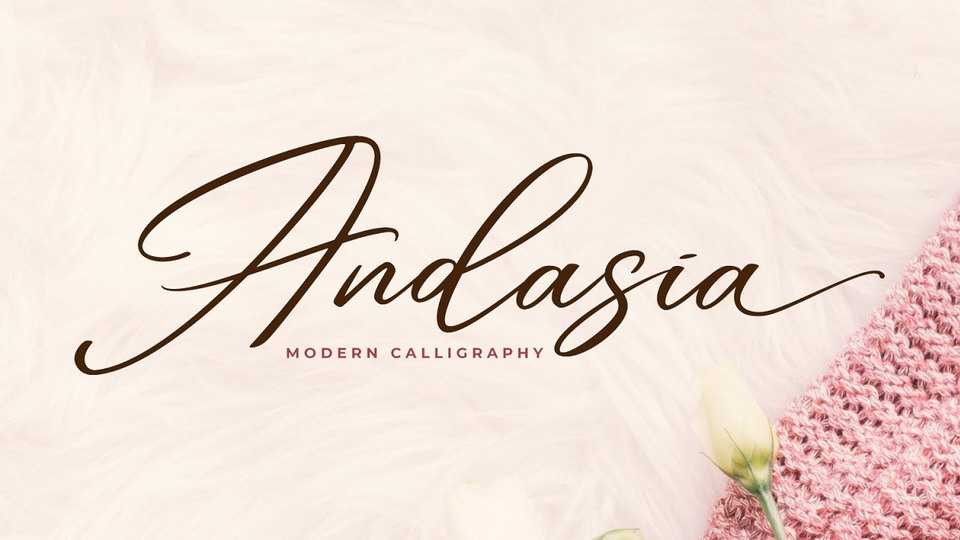
Download Andasia Script font, a beautiful calligraphy with natural handwritten style. Andasia brings a beautiful and modern typeface that best used for weddings, branding, logotype, and quotes.
Designer: Din Studio